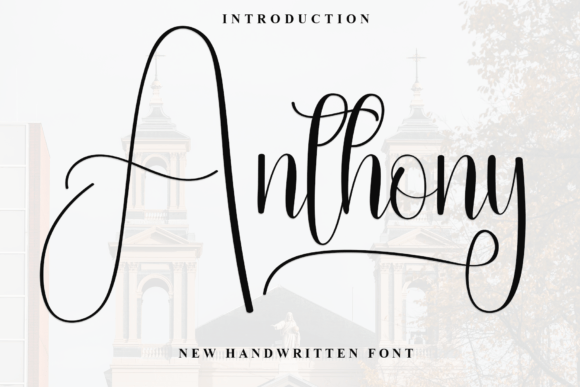
The Designer’s Delight: Exploring the Elegance of Anthony Font
I’ll never forget the moment I stumbled upon Anthony Font while working on a branding project for a luxury client. I had spent hours scouring the internet for the perfect font, but nothing seemed to capture the essence of elegance and sophistication I was looking for. That was until I laid eyes on Anthony – a stylish handwritten font that exuded a contemporary atmosphere and impeccable form. In this article, I’ll share my experience with Anthony Font, its features, and how to make the most of it in your designs.
A First Impression: What I Love About Anthony Font
Anthony Font has quickly become a staple in my design toolkit, and for good reason. Here are a few things that I absolutely love about it:
- ✨ Timeless classic calligraphy: Anthony Font draws inspiration from traditional calligraphy, giving it a sense of sophistication and elegance.
- ✅ Balanced and varied: The font features a range of glyphs and ligatures that add visual interest to any project.
- 💻 PUA encoded: With PUA encoding, accessing the font’s amazing glyphs and ligatures is a breeze.
The Not-So-Perfect: Small Quirks and Limitations
While Anthony Font is an excellent choice for many projects, there are a few minor quirks to be aware of:
- 🤔 Limited use in body text: Due to its elegant, cursive nature, Anthony Font may not be the best choice for lengthy body text.
- ⚠️ Some ligatures may not render correctly: As with any font, there may be instances where ligatures don’t render as expected – a minor tweak in your design software can usually resolve this.
The Story Behind Anthony Font: Designer Inspiration
Anthony Font was designed with the intention of capturing the essence of timeless classic calligraphy in a modern, digital format. The creator aimed to craft a font that would be both elegant and versatile, suitable for a range of design applications. While the actual designer remains unknown, their passion for typography and commitment to quality shine through in every detail of Anthony Font.
| What is PUA encoding, and how does it benefit Anthony Font? | PUA (Private Use Area) encoding allows for easy access to a font’s glyphs and ligatures, making it simpler to use and customize Anthony Font in your designs. |
| Is Anthony Font suitable for body text? | While Anthony Font is elegant and beautiful, it may not be the best choice for lengthy body text due to its cursive nature and potential readability issues. |